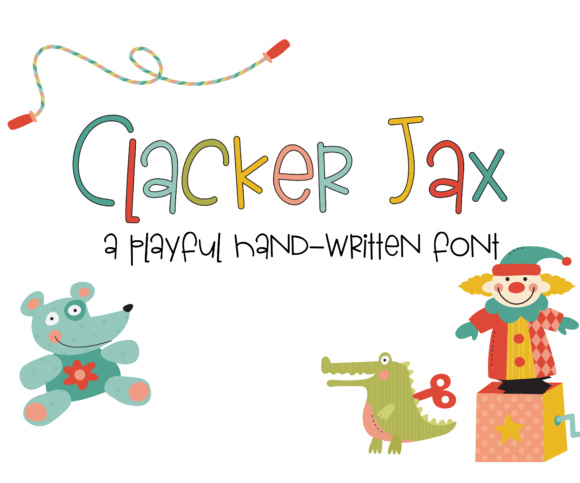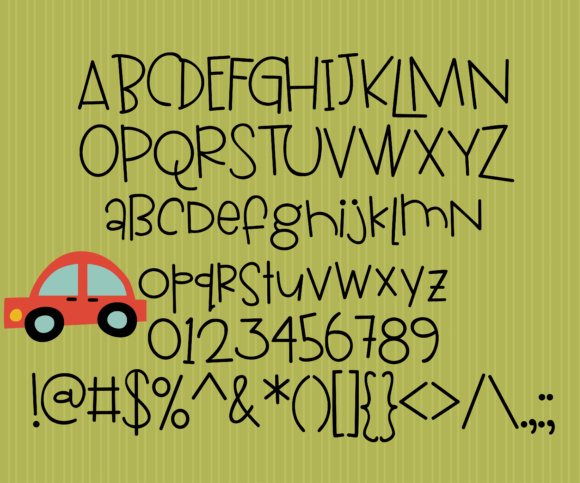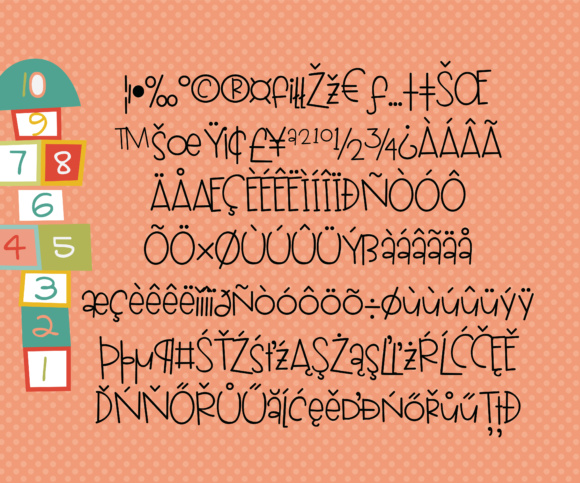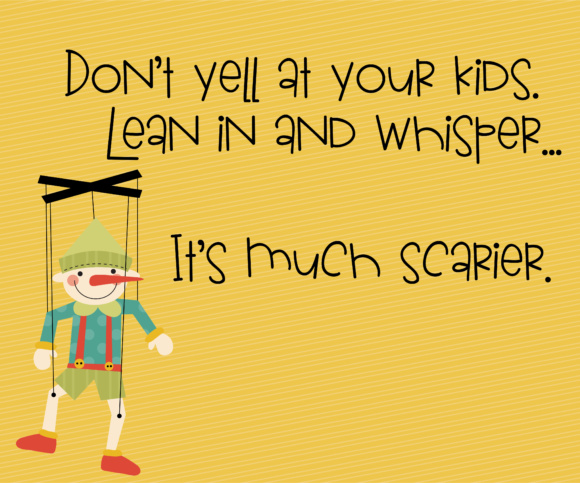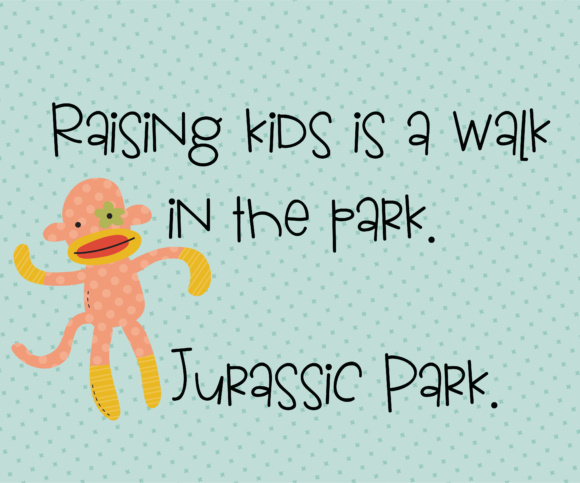
Clacker Jax Font
About Clacker Jax Font
Clacker Jax is a cute and casual handwritten font; this highly legible font has a bouncy baseline that makes a whimsical option for kids themed headlines and titles.